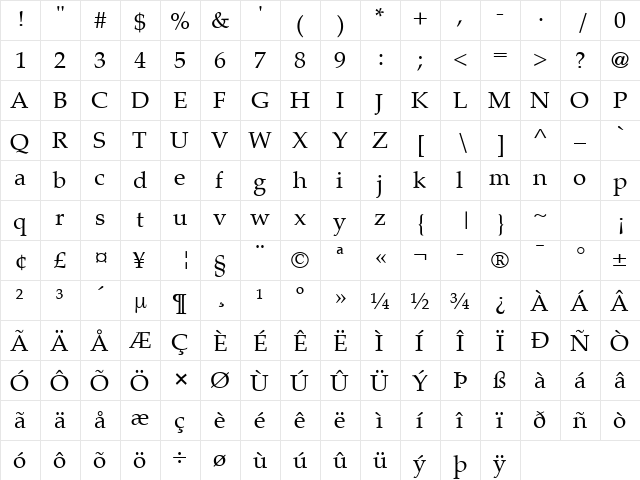
Palatino S Regular
Design Context for Palatino S Typeface
Palatino S takes a measured approach to typography — its balanced proportions and neutral character make it a reliable workhorse for both digital and print work.